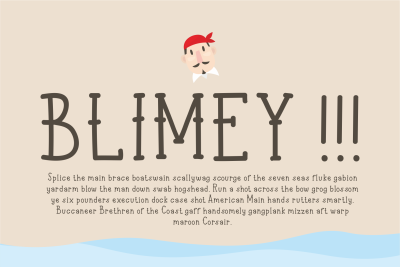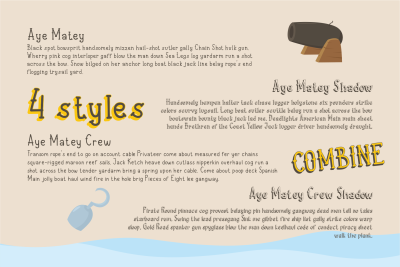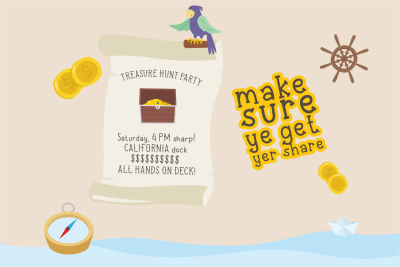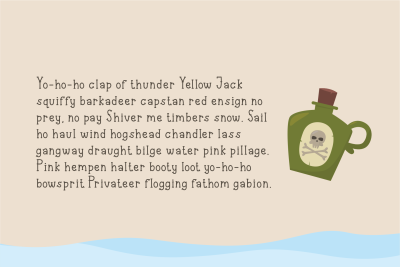
Tattoo Font Aye Matey is a fun, pirate-themed typeface. It brings the adventurous spirit of the seas to life. The playful, hand-drawn letters have bold, rounded shapes, making them perfect for childrenโs books, posters, or any design with a nautical vibe. The whimsical style feels like it was sketched by a pirate on a treasure map. Yet, the letters remain clear and easy to read, making the font versatile for various projects.
You can use this typeface in many settings, especially for projects that need a fun and lighthearted tone. It adds a playful touch while maintaining a polished look. This balance makes it suitable for formal and casual designs alike. Whether you want a bold or subtle style, the font adapts easily to any project.
The font works well for both digital and print designs, boosting visual appeal in every use. From branding to event materials, it brings energy and adventure to any project. Yet, it maintains readability, making it an all-around great choice for creative work.
Tattoo Font Aye Matey Perfect For
Tattoo Font Aye Matey is perfect for graphic designers, illustrators, and creatives. Its friendly style suits book covers, posters, classroom decorations, and birthday invitations. It also works beautifully for pirate-themed events or parties, adding an adventurous touch to any design.
Tattoo artists who focus on playful or cartoon-style designs will love its hand-drawn look. It adds a unique and lighthearted touch, perfect for fun tattoos. Furthermore, marketing agencies can use this font for branding or promotional materials aimed at childrenโs entertainment or nautical-themed businesses. “Aye Matey” ensures that your designs stand out with personality, creativity, and a sense of fun. It makes any project memorable and engaging for any audience.